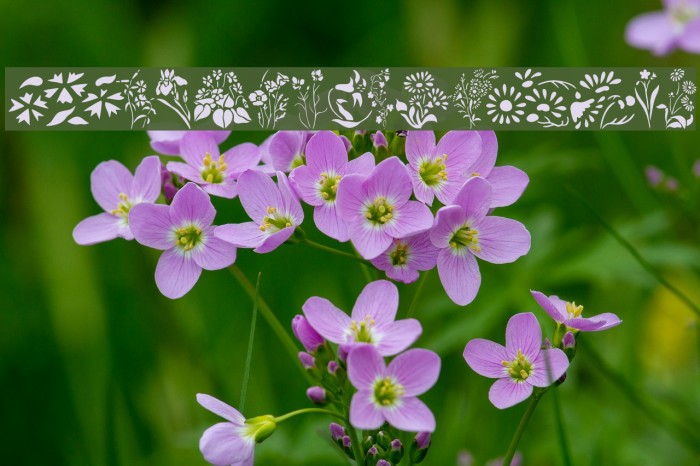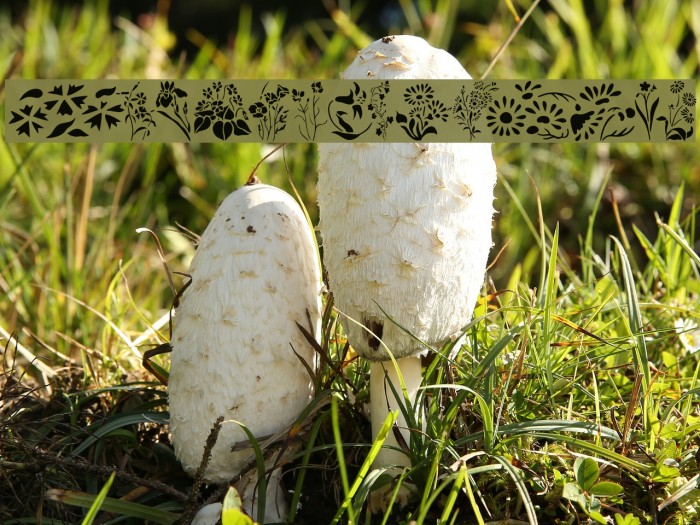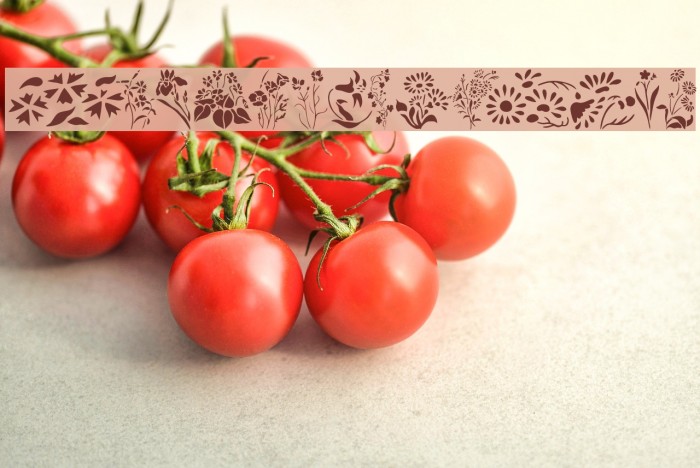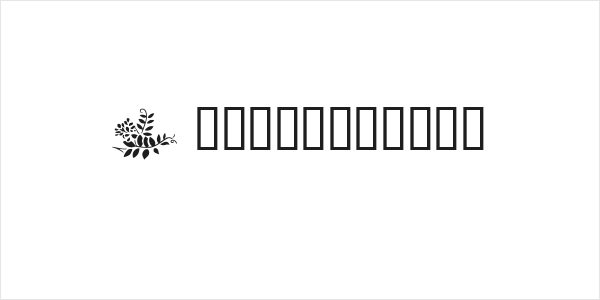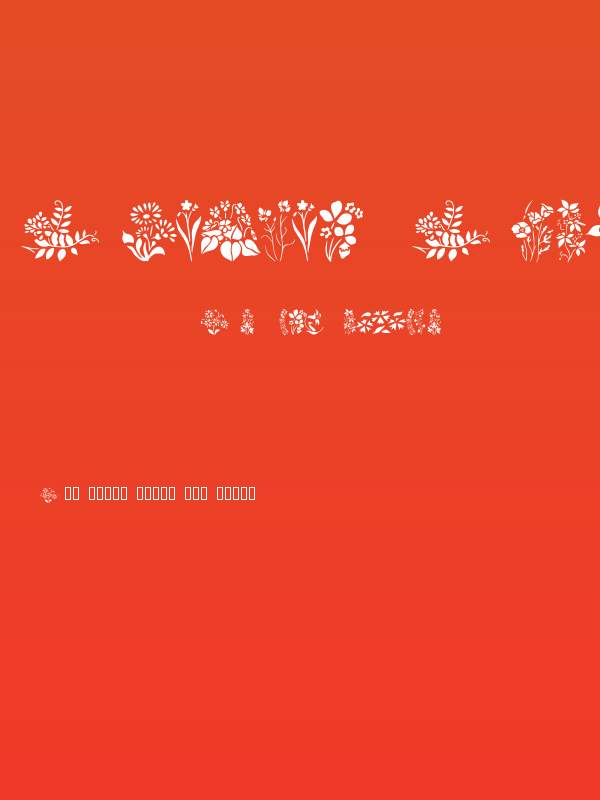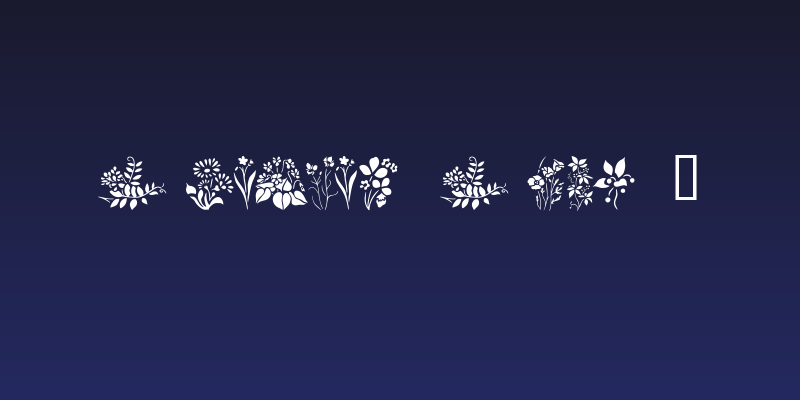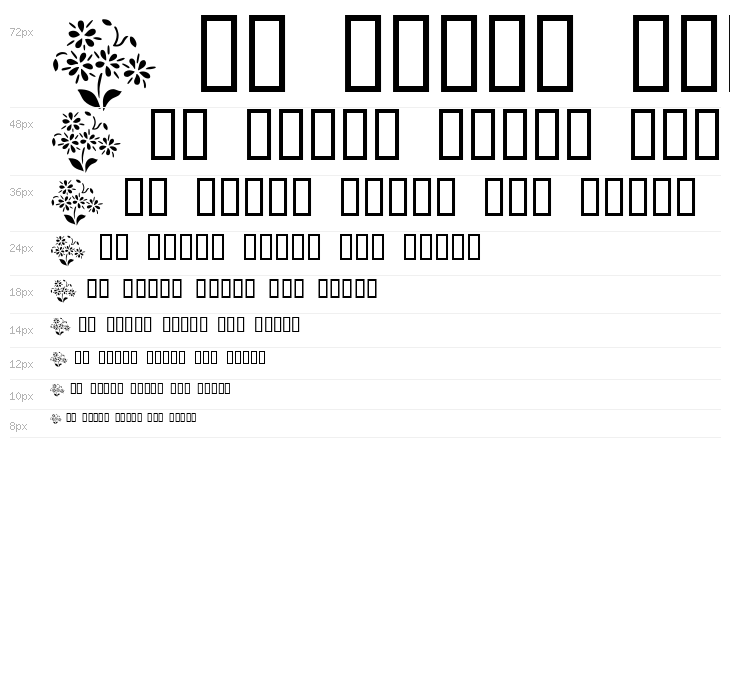
Wildflowers2 Font
Wildflowers2 Description
A decorative typeface featuring detailed wildflower and botanical silhouettes as glyphs, with each character representing a unique floral illustration. The style is organic and intricate, with high contrast between the solid black shapes and negative space, evoking a hand-cut or stencil-like appearance.
| Overall Style | Decorative, Organic, Nature-inspired |
| Use Case | Logos, Headlines, Decorative elements |
| Proposed Projects | Nature-themed invitations, eco-friendly branding, packaging design, greeting cards, decorative headings, scrapbooking. |